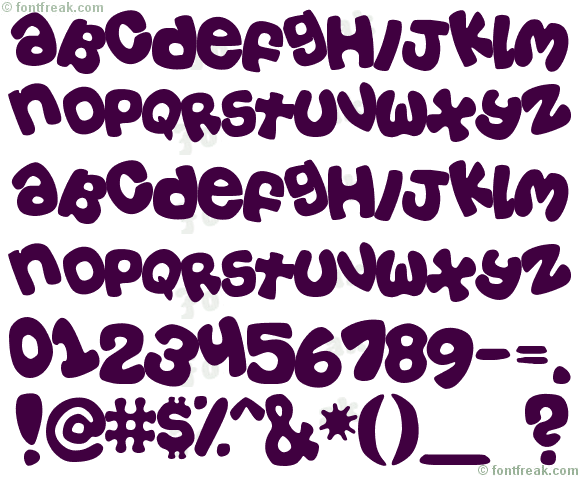
Casual Tossed
About Casual Tossed
Casual Tossed by A.J. Palmer is a playful display font that falls into the category of decorative typefaces. Designed in 1997, this freeware font boasts a unique and whimsical style characterized by its rounded, organic shapes and thick, bold strokes. The letterforms exhibit a casual and relaxed feel, with varied stroke weights that contribute to its lighthearted aesthetic. The spacing between the letters is intentionally uneven, enhancing its informal look, while the slightly exaggerated curves add a touch of fun and creativity.
This font is particularly well-suited for a variety of applications. It shines in creative projects such as children's book covers, where its playful nature can attract young readers. Additionally, Casual Tossed is ideal for restaurant menus that aim to convey a friendly and approachable atmosphere, making it perfect for family-oriented dining establishments. Another excellent use case is event flyers, especially for casual gatherings like birthday parties or community events, where a lively font can capture attention. Graphic designers will find this font valuable for social media graphics, where it can create eye-catching posts that resonate with a fun-loving audience.